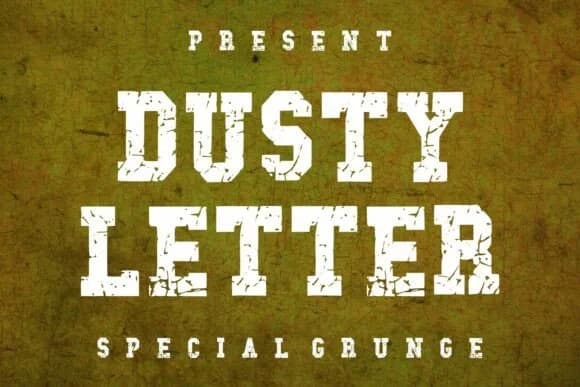
1 / 6About Dusty Letter Font
Picture a weathered saloon sign in a ghost town, its letters bearing the scars of decades in the desert sun. That's where Dusty Letter, designed by Dreamspace.studio, lives best. This slab serif display font captures that worn, authentic character through its square, blocky serifs and heavy distressing that makes every letter look genuinely aged. The texture isn't ornamental surface treatment; it's embedded in the typeface's structure, giving it the kind of visual weight that makes you believe it survived a century outdoors under brutal weather.
Use it for vintage record cover layouts, rustic craft brewery labels, or antique shop branding where the roughness actually enhances credibility rather than undermining it. Distressed packaging for artisanal goods, retro poster designs, and weathered storefront signage all feel at home with this typeface's character. What keeps it readable at large sizes despite all that texture is the bold weight of the letterforms; push it big without worrying about the distressing creating legibility issues. Those square serifs give each letter a heavy, grounded presence that works beautifully with minimal layouts or as a bold focal point on its own.
- Sturdy, Confident, Grunge
Dusty Letter Font is a slab serif font that shines as a display or heading face. Pair it with a clean sans-serif or serif font for body text β the contrast creates a clear hierarchy while the two styles stay balanced and easy to read.